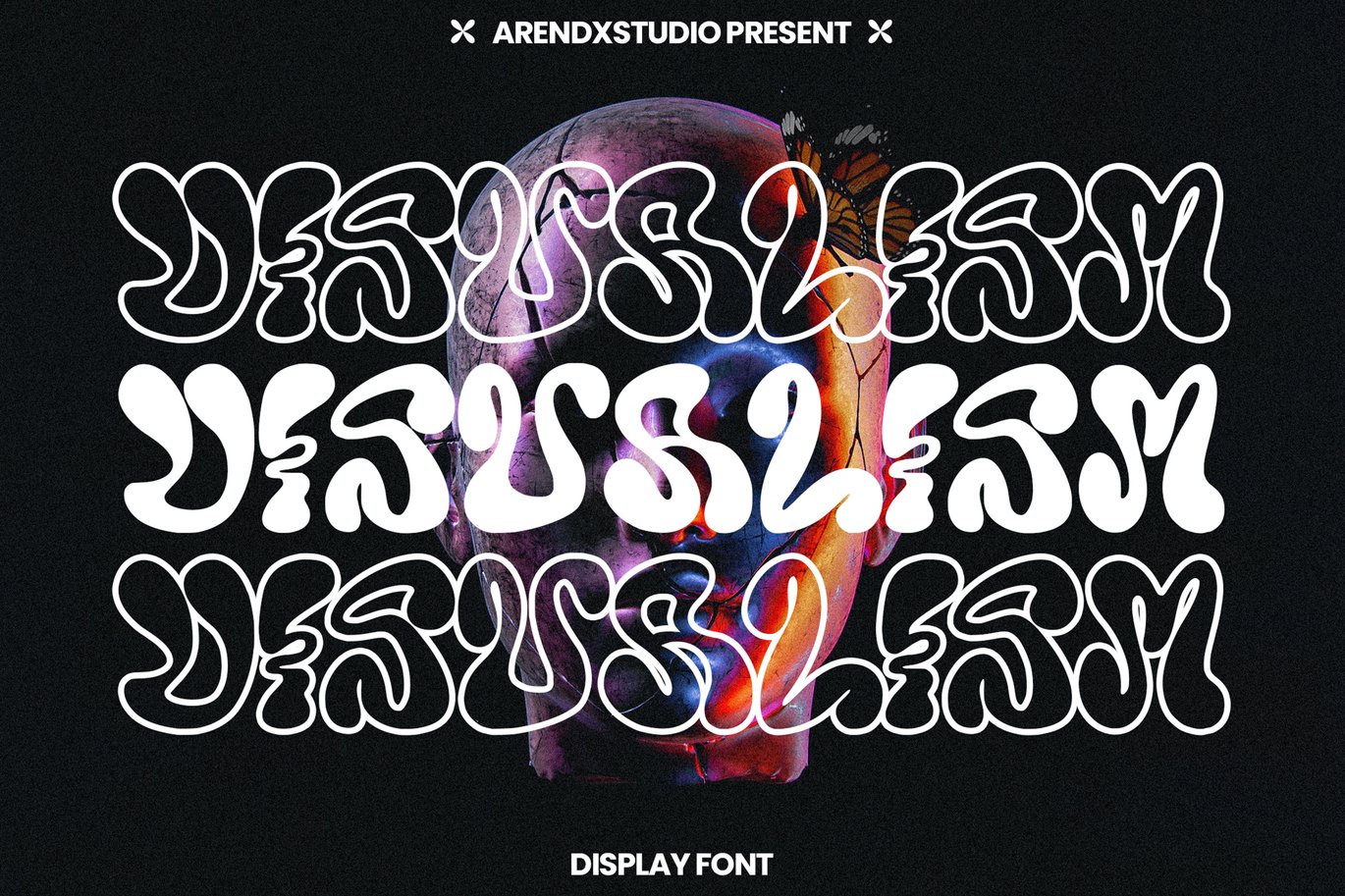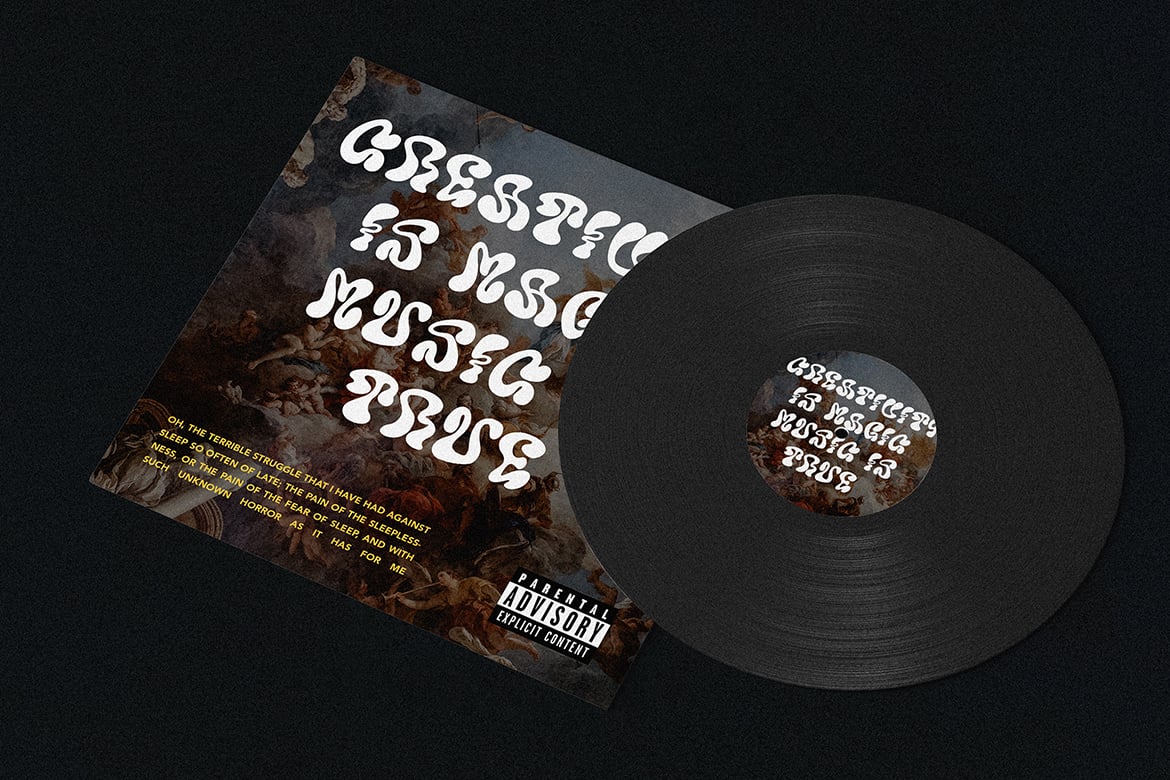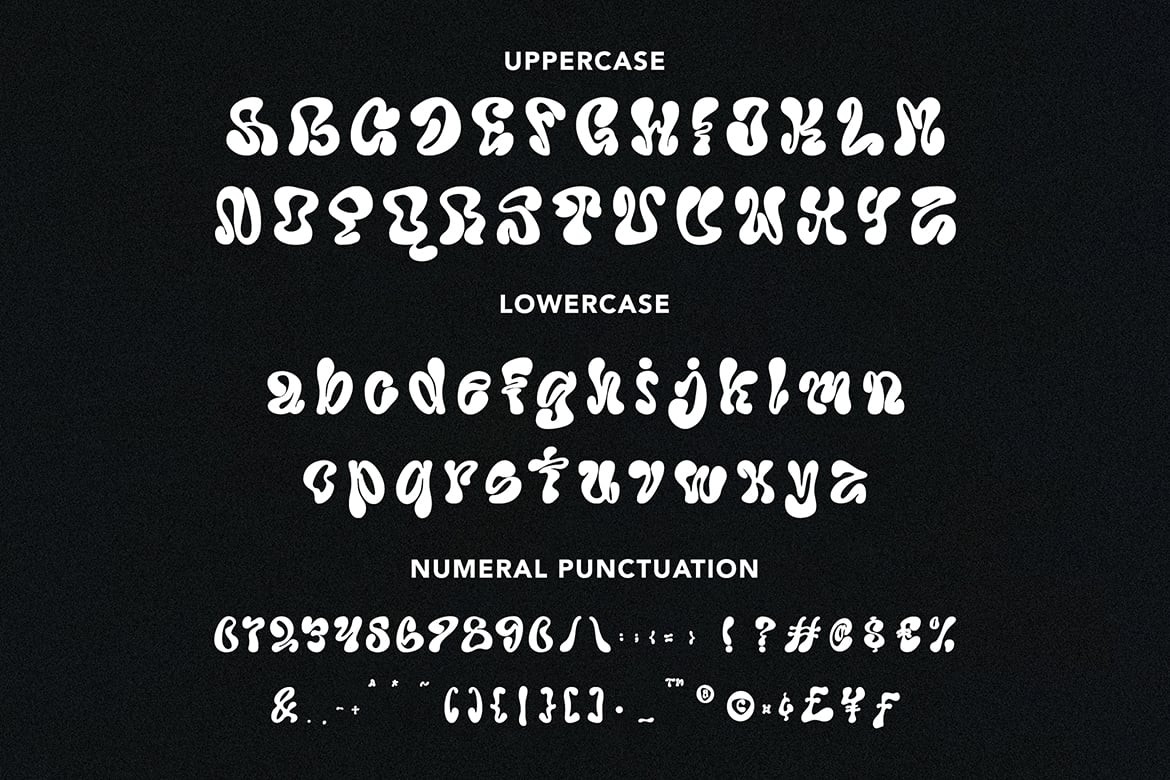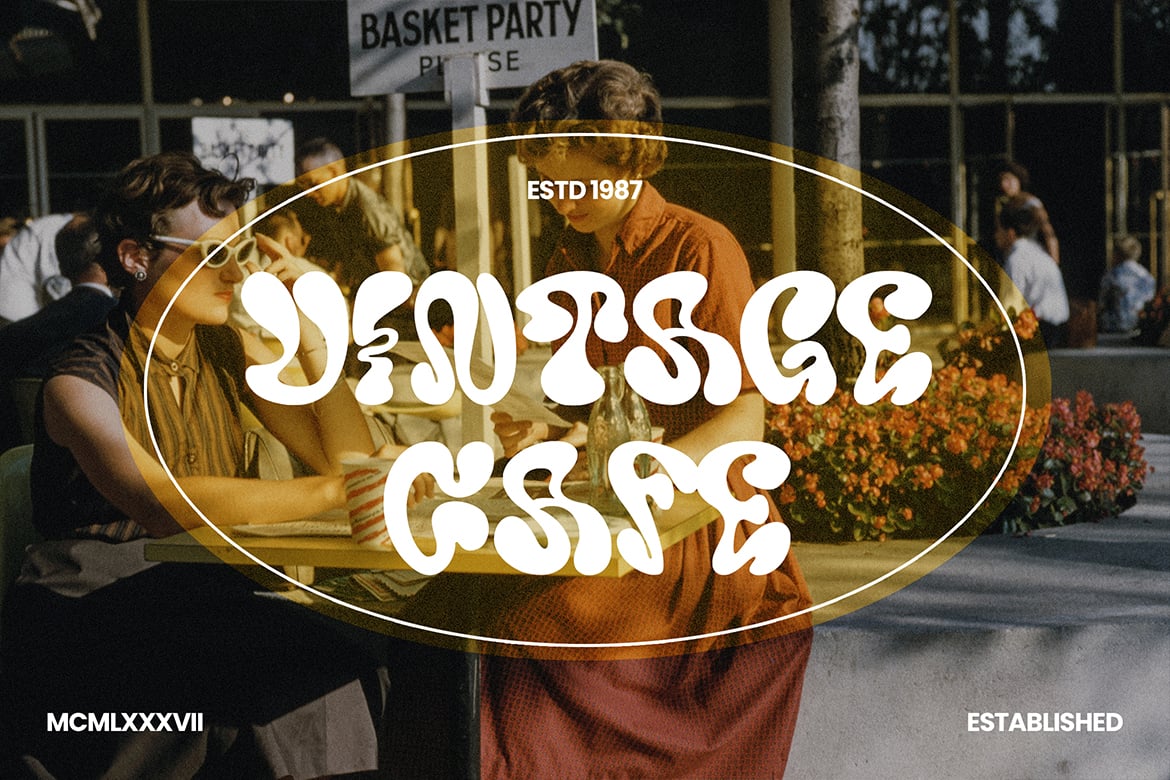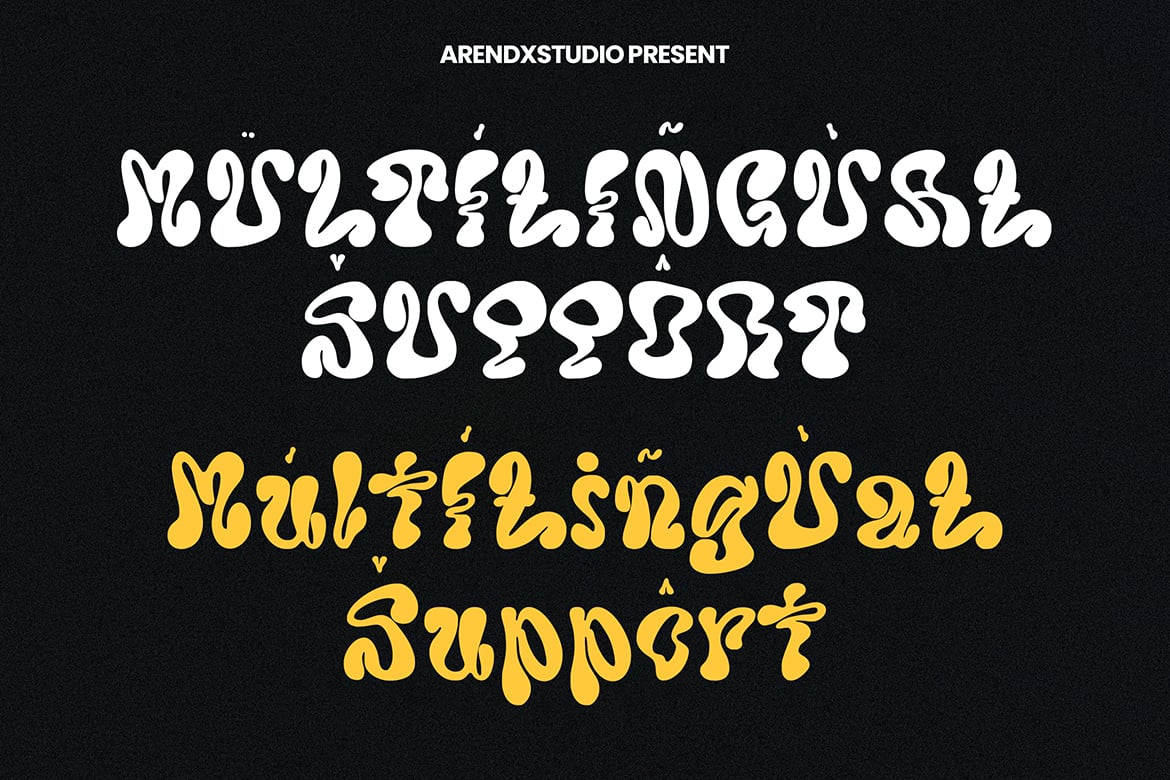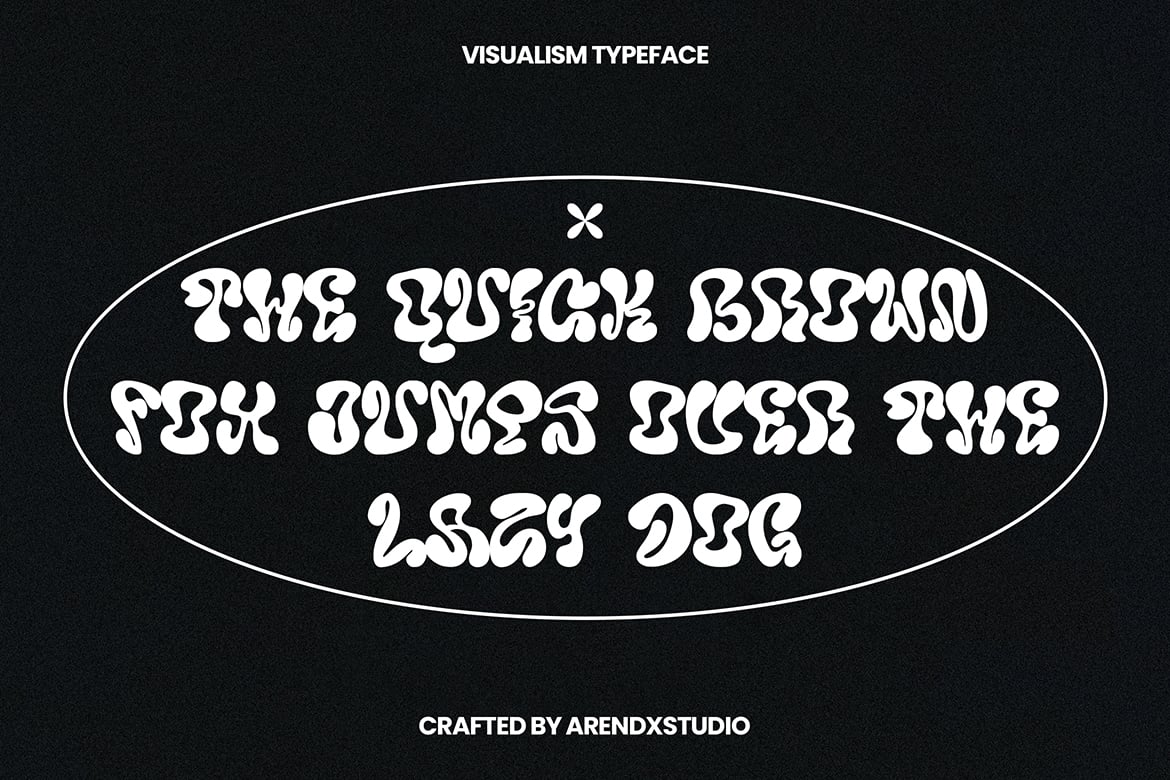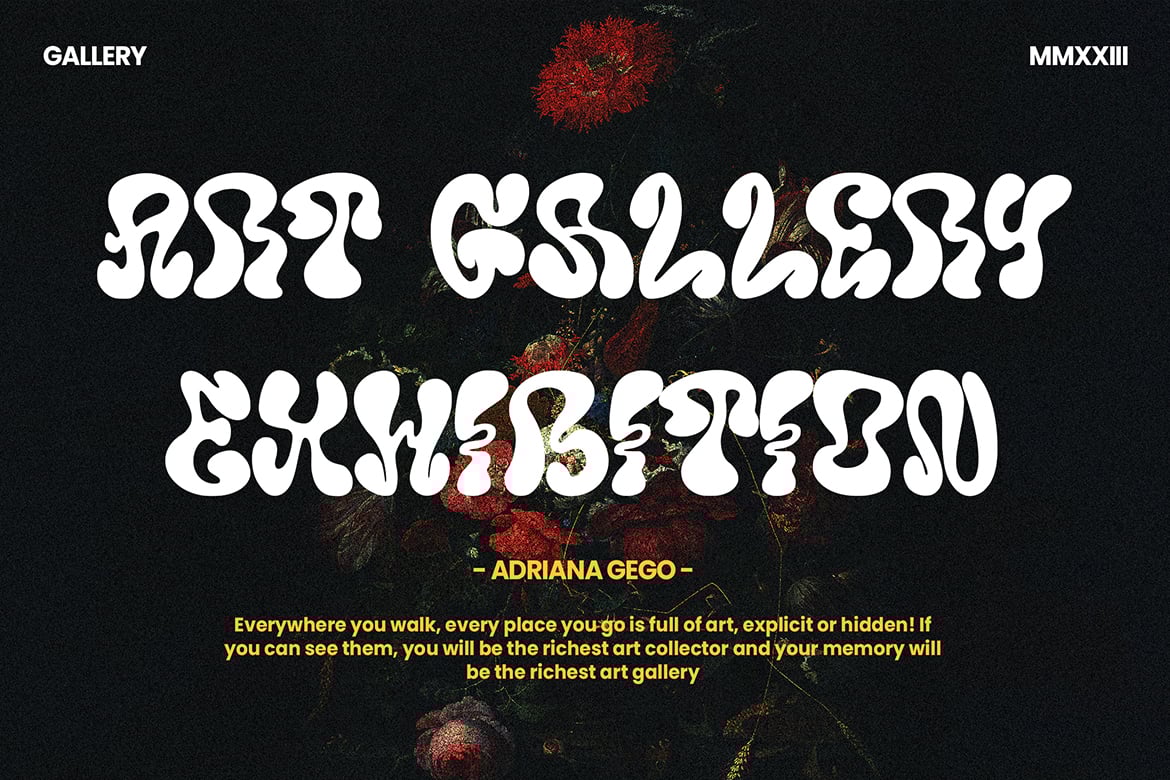
Visualism Font
Visualism Font is a free style font that has the characteristics of street art that shows freedom and is filled with unique characters